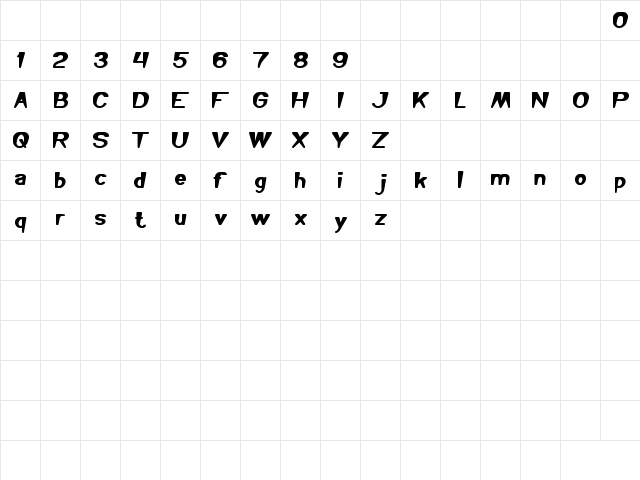
You Makes Me Happy Regular
Design Context for You Makes Me Happy Typeface
You Makes Me Happy offers clean, dependable letterforms without strong stylistic allegiance, making it a practical choice for designers who need flexibility.